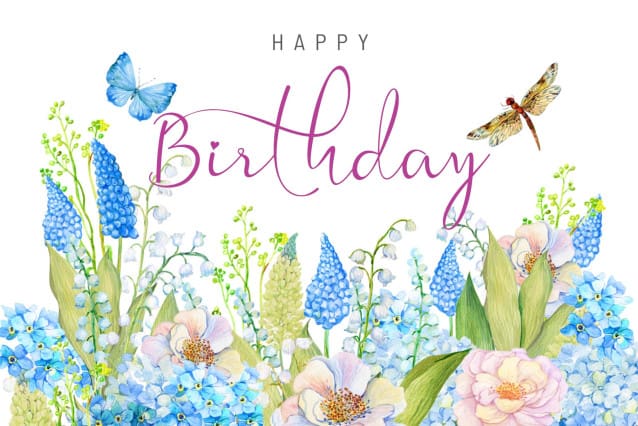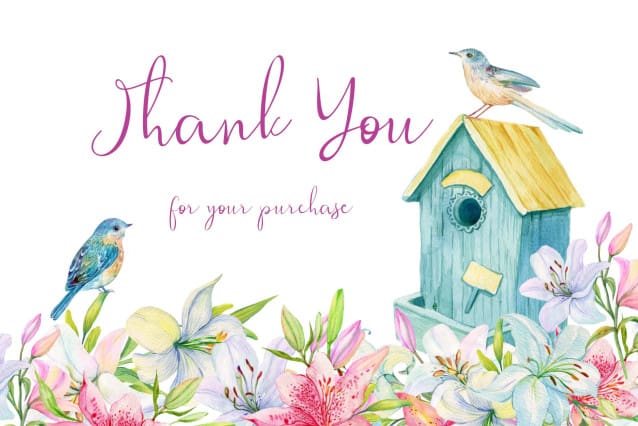
Neirra Spring Font
Neirra Spring Font is a beautiful handwritten font. This font is equipped with uppercase, lowercase, numerals, punctuation, ligatures, and multilingual support. Very suitable for spring, summer, weddings, banners, posters, prints, branding, stickers, posters, and others.